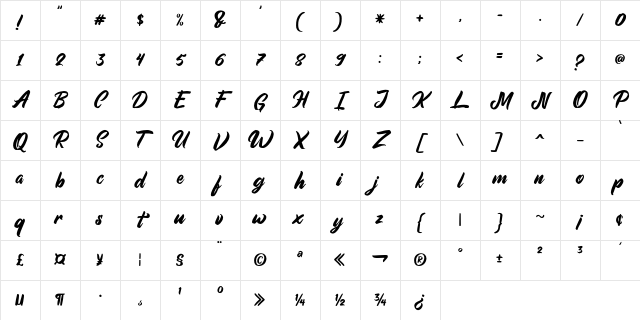
Complete Aimchestar Free Personal Use Regular glyph index. Displaying only characters natively supported by Aimchestar Free Personal Use Regular font.
Aimchestar Free Personal Use is a composed and adaptable typeface that performs quietly and consistently across a wide range of design contexts.
Who designed the Aimchestar Free Personal Use Regular font?
This font was published by Ferry Hadriyan. Check the technical specs section for copyright and designer details.